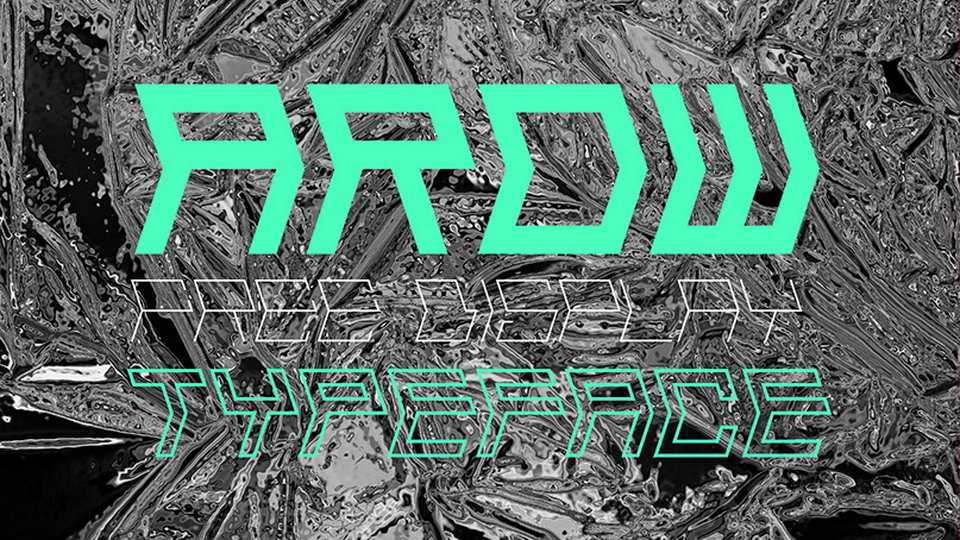
Download AROW typeface, a creative futuristic display font family in two weights. AROW is great for creating eye-catching headlines and posters, applicable for web, print, motion graphics and other artworks.